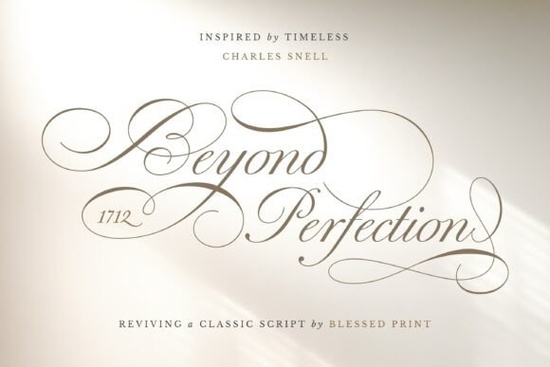
Looking for a script font that feels timeless and effortlessly elegant? Beyond Perfection Font delivers just that crafted with care to reflect the graceful flow of classic calligraphy. Inspired by the hand of Charles Snell, this typeface brings refined letterforms and smooth connections to every design. Whether you're creating wedding invites, luxury branding, or formal stationery, it adds a touch of sophistication without feeling overdone.
What makes Beyond Perfection stand out?
This isn’t just another script font it’s built for real-world use. With over 400 alternates, swashes, and ligatures, it gives you creative freedom while keeping your design consistent. You’ll find subtle variations that help avoid repetition, especially when working on long text blocks like invitation wording or brand copy.
The natural flow between letters mimics genuine handwriting, making it perfect for projects where authenticity matters. It works well in both digital and print formats, so whether you’re designing for Instagram or printing high-end invitations, the details hold up beautifully.
How can I use Beyond Perfection in my projects?
Designers love this font for its versatility across different styles:
- Wedding invitations – The soft curves and elegant flourishes make it ideal for romantic, upscale invites.
- Luxury branding – Use it for logos, packaging, or business cards to convey refinement and attention to detail.
- Print-on-demand items – Great for mugs, notebooks, and wall art where a personal, handwritten feel enhances appeal.
- Formal typography – Works well in event programs, certificates, or editorial layouts where elegance is key.
How does it compare to other script fonts?
If you’ve explored similar fonts, you might have noticed that many lean too much toward ornate or overly decorative styles. Beyond Perfection strikes a balance refined but not fussy, expressive yet readable. It doesn’t shout for attention; instead, it quietly elevates your work.
When choosing a script font, consider how it fits your project’s tone. Beyond Perfection excels in situations where subtlety and grace matter most. It’s not flashy, but it leaves a lasting impression through consistency and quality.
Final thoughts: Is it right for your next project?
If you value clean lines, authentic calligraphic style, and plenty of design flexibility, this font is worth adding to your collection. It’s especially helpful if you often work with weddings, high-end brands, or any project where “elegant” is the goal.